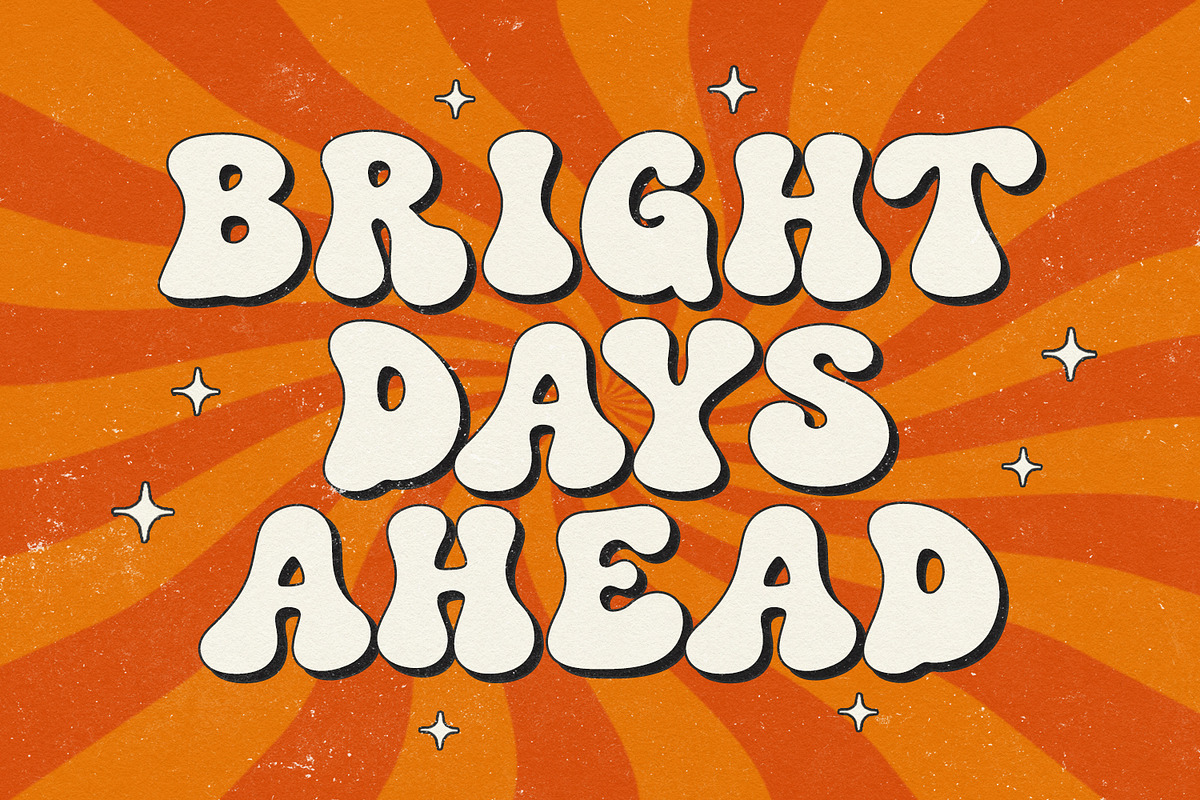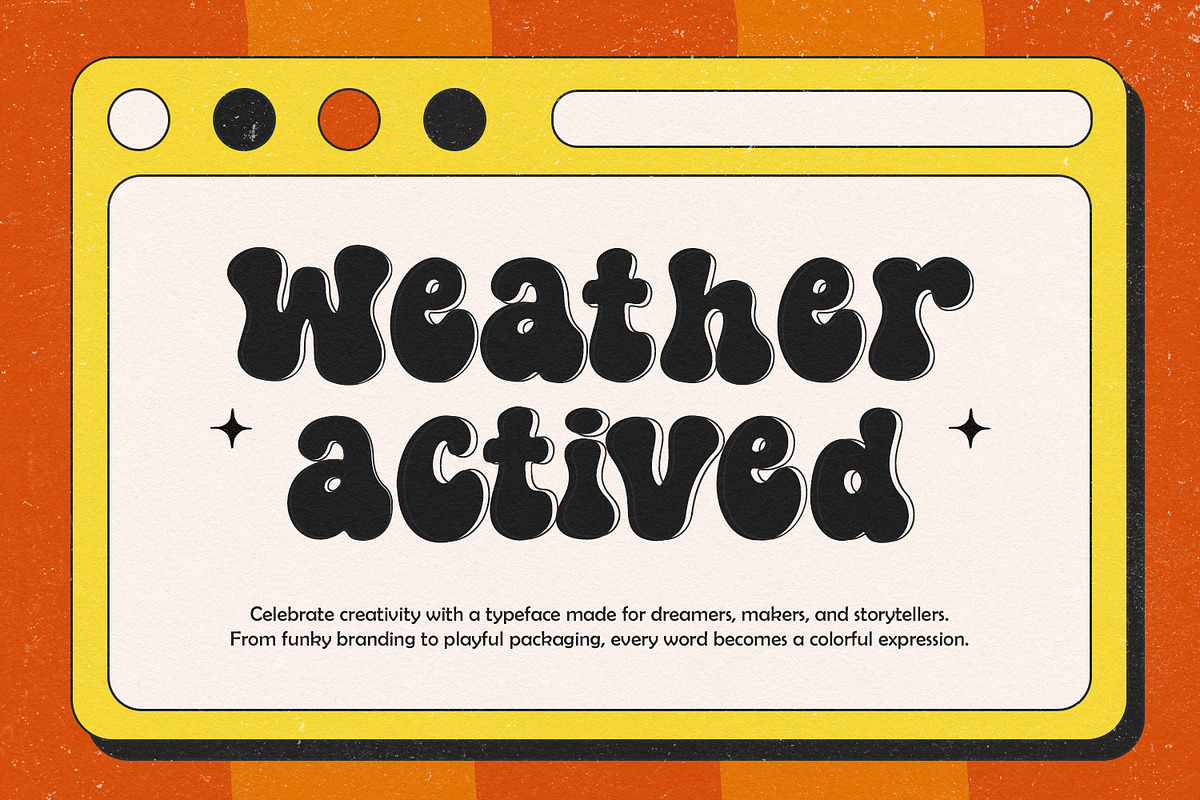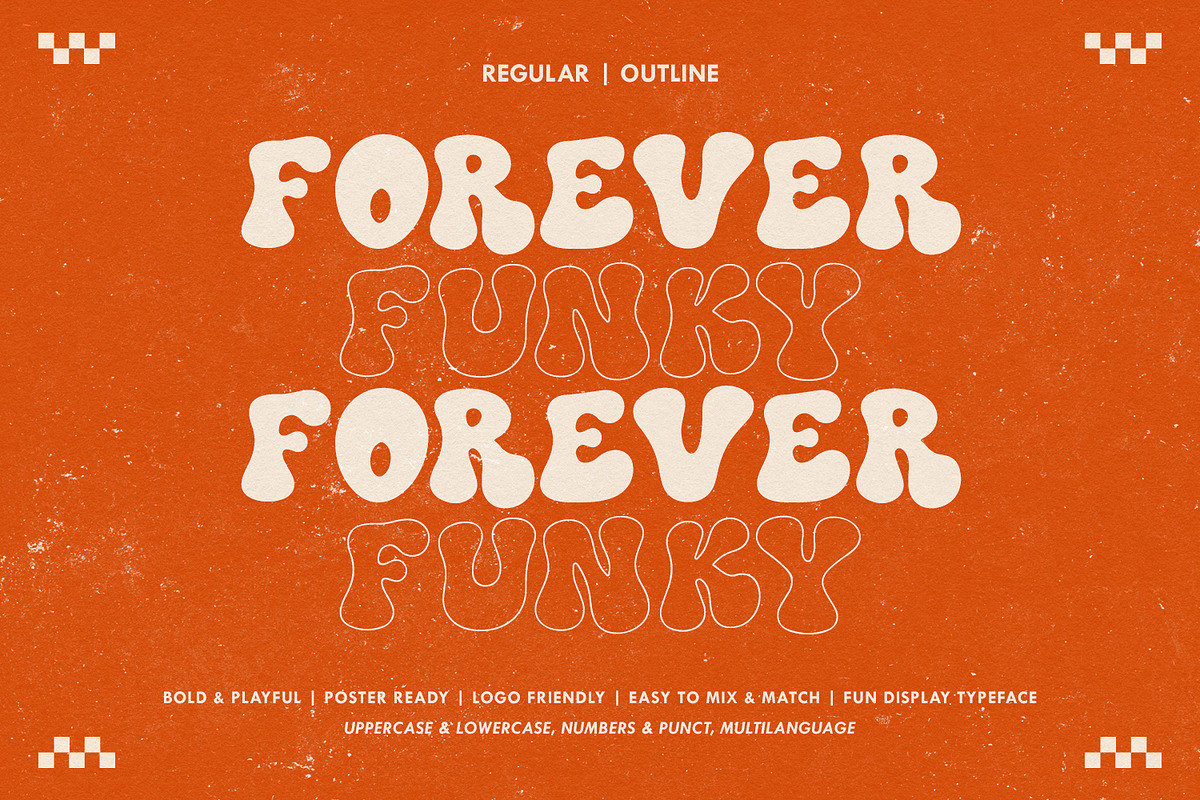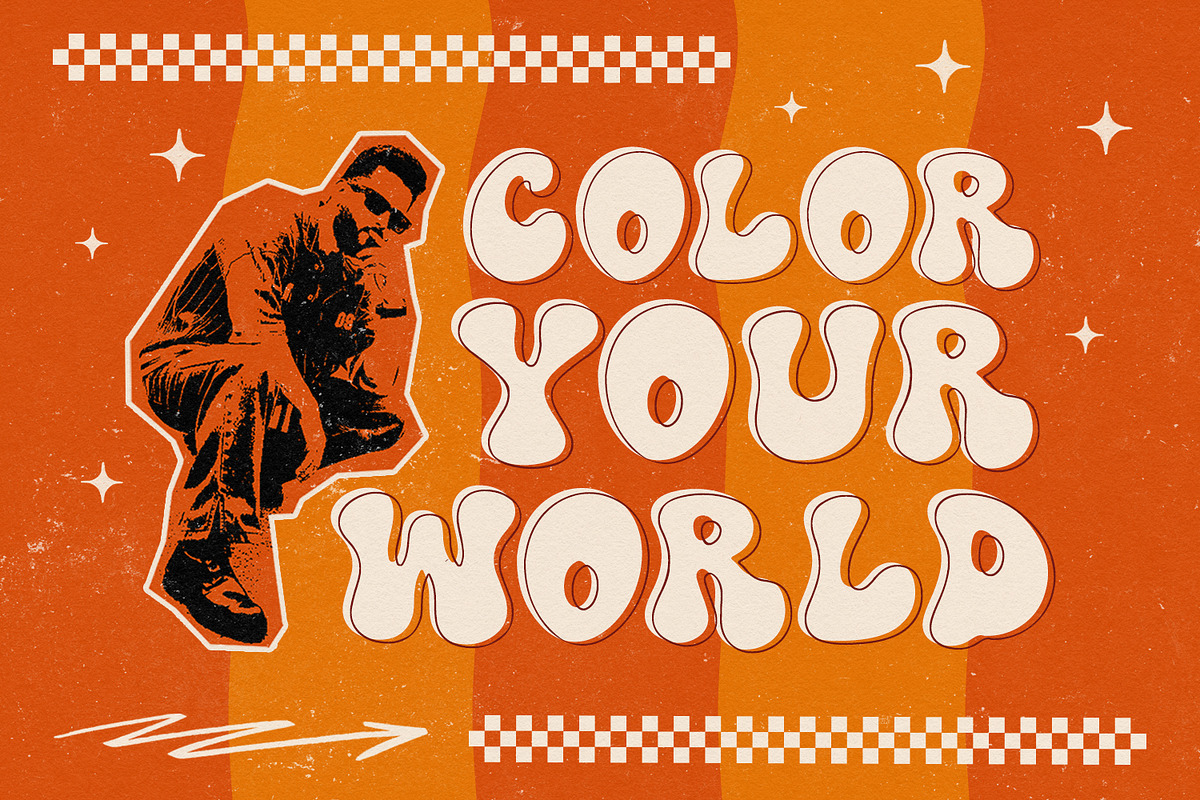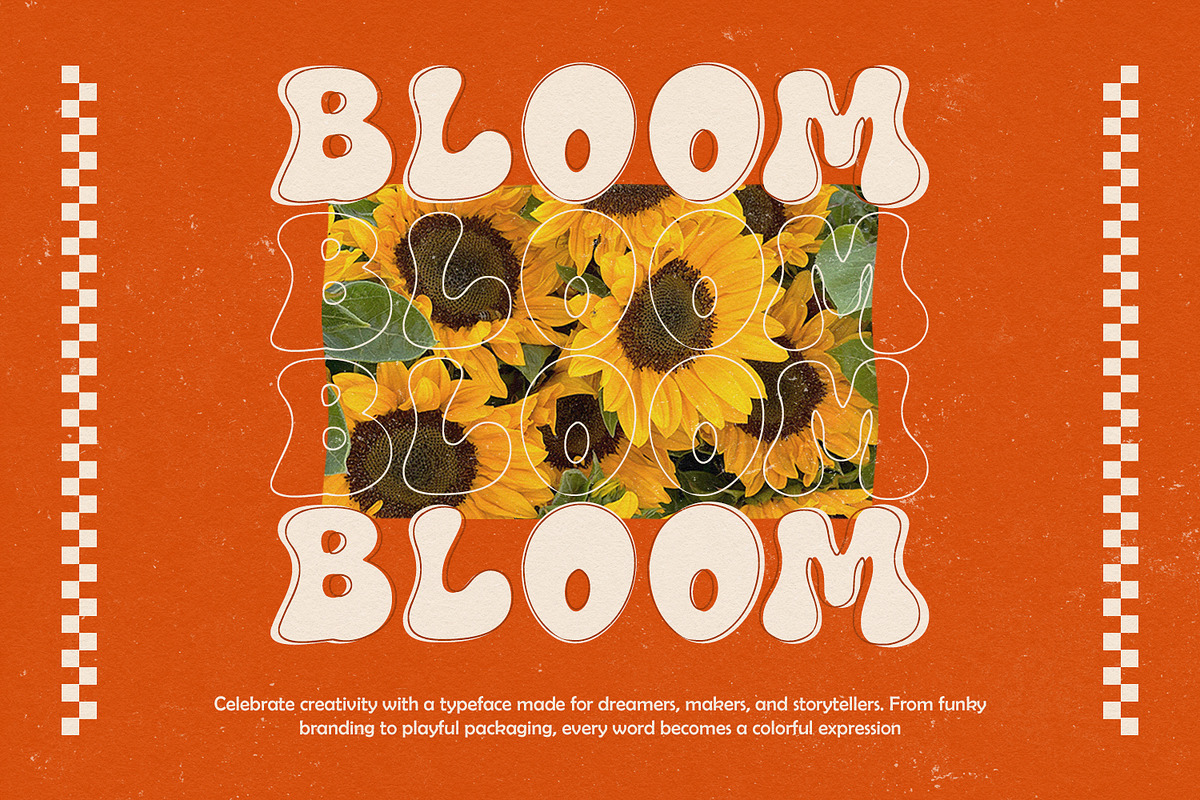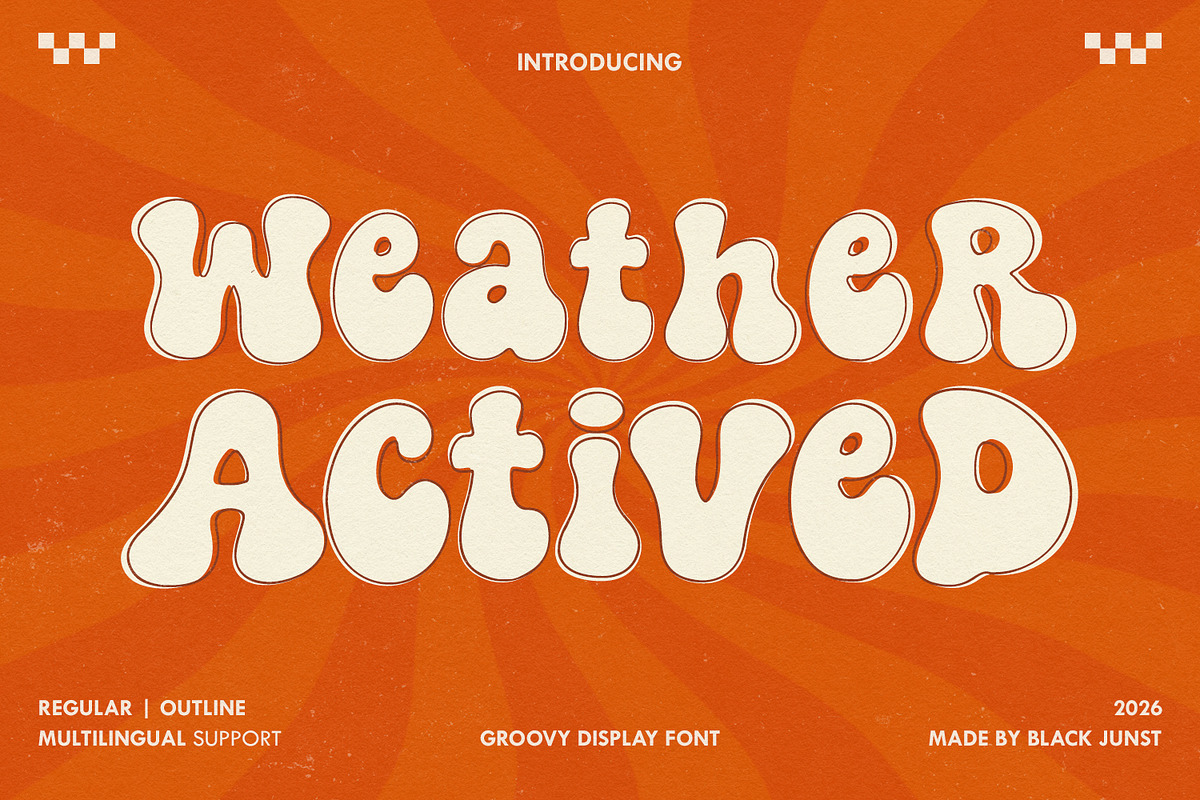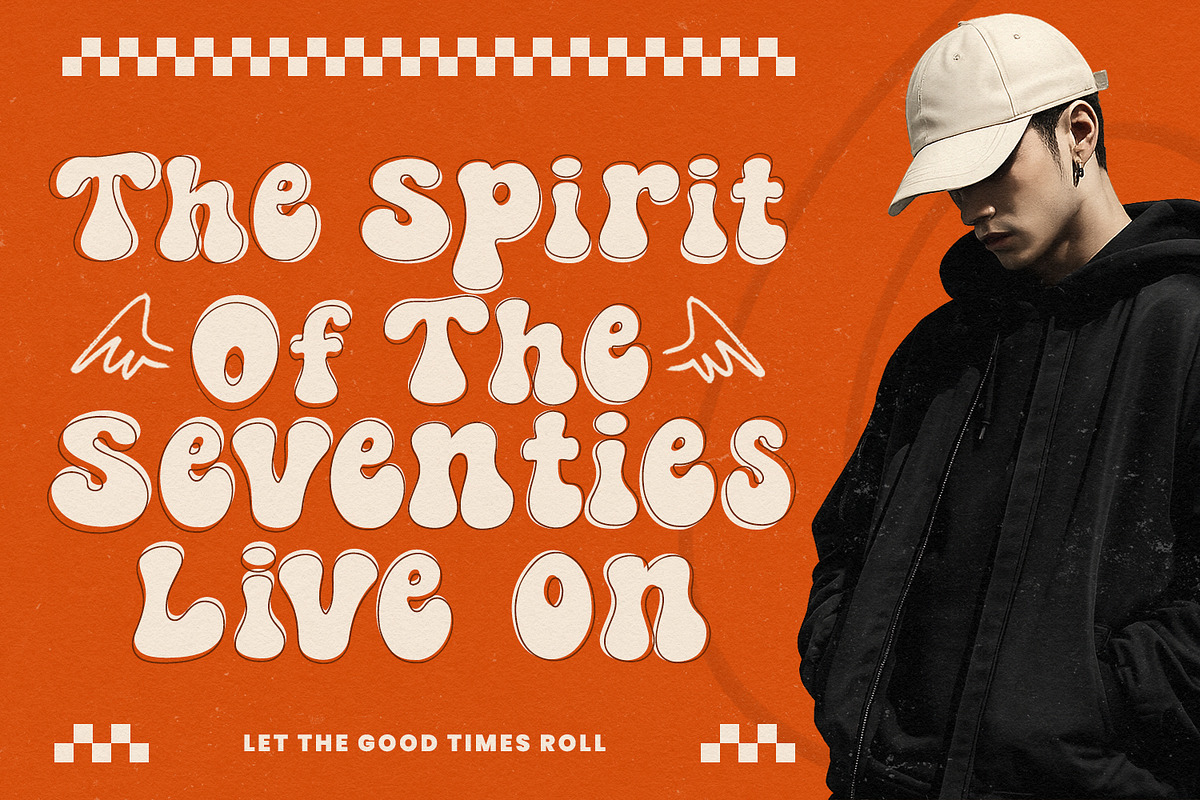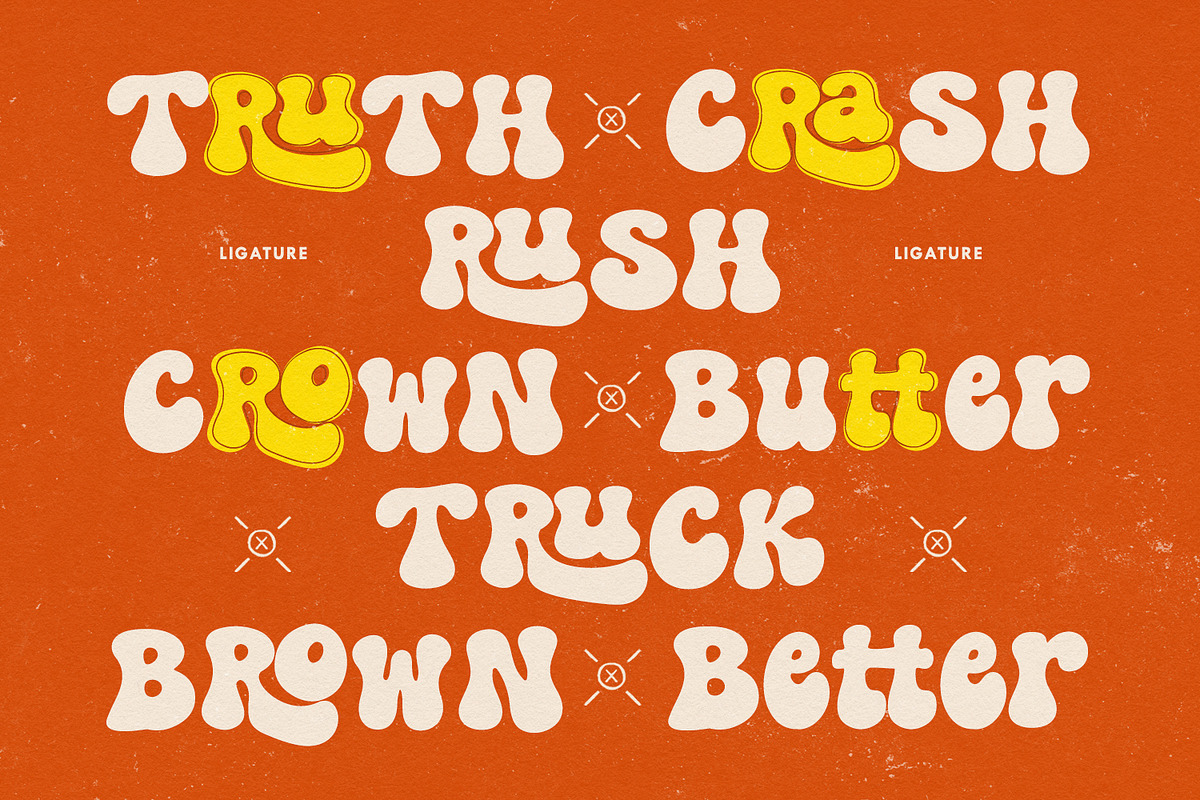
Weather Actived
Weather Actived – Groovy Retro Display Font
Bring bold personality and nostalgic vibes into your creative projects with Weather Actived, a playful groovy display font inspired by the iconic typography of the 60s and 70s. Designed with soft rounded curves, chunky letterforms, and eye-catching proportions, this font instantly creates fun, cheerful, and memorable typography.
Weather Actived includes 2 versatile styles—Regular and Outline—allowing you to mix and match for unique headlines, branding, packaging, posters, apparel, and social media graphics. Whether you're designing for vintage-inspired brands or modern playful products, this typeface delivers a bold visual impact.
Its handcrafted details make every character feel warm, authentic, and full of personality, making it suitable for both commercial and personal creative projects.
Regular Style
Outline Style
Handmade Typeface
Weather Actived is designed to help your projects stand out with playful retro energy while maintaining excellent readability for large display applications.